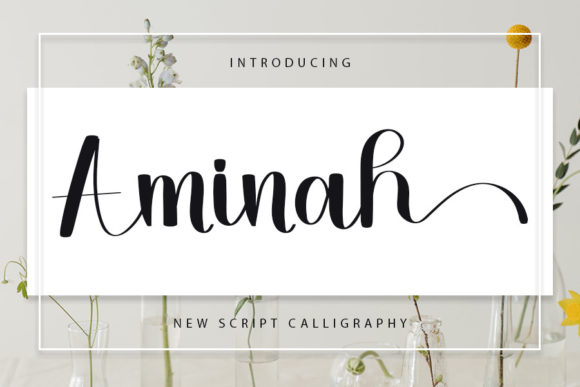
The Hunt for the Perfect Font: Discovering Aminah
I still remember the design project that led me to Aminah Font. I was working on a DIY craft project for a client who wanted a custom Instagram post with a handwritten, calligraphy-style font. I had spent hours scouring the internet for the perfect font, but nothing seemed quite right. That was until I stumbled upon Aminah Font. ✨
What is Aminah Font?
Aminah is a chic and trendy handwritten font designed to turn any creative idea into a true piece of art. Whether you’re a designer, crafter, or creative hobbyist, this font is perfect for Instagram posts, calligraphy scripts, and DIY projects. With its elegant and artistic feel, Aminah Font is sure to elevate your designs.
Honest Review: The Good and the Quirks
- ✨ Elegant and artistic feel, perfect for creative projects
- 💫 Supports OpenType features, glyphs, and stylistic alternates
- 🎨 Versatile and can be used for a variety of design projects
While Aminah Font is an excellent choice, there are a few things to keep in mind: ⚠️ Some users have reported issues with kerning, which can be adjusted manually. 🤔 Additionally, the font may not be suitable for very long texts or body copy, as it’s designed primarily for headlines and titles.
The Story Behind Aminah Font
Aminah Font was designed with the creative hobbyist in mind. The designer, inspired by the art of calligraphy and hand-lettering, aimed to create a font that would bring a touch of elegance and sophistication to any design project. With its unique blend of modern and traditional elements, Aminah Font is sure to become a favorite among designers and crafters alike.
Q: What is Aminah Font best used for?
A: Aminah Font is perfect for creative projects, such as Instagram posts, calligraphy scripts, and DIY projects.
Q: Is Aminah Font suitable for long texts or body copy?
A: While Aminah Font is highly legible, it’s designed primarily for headlines and titles. For long texts or body copy, you may want to consider a different font.
Q: Does Aminah Font support OpenType features?
A: Yes, Aminah Font supports OpenType features, glyphs, and stylistic alternates, allowing you to add creative touches to your designs.